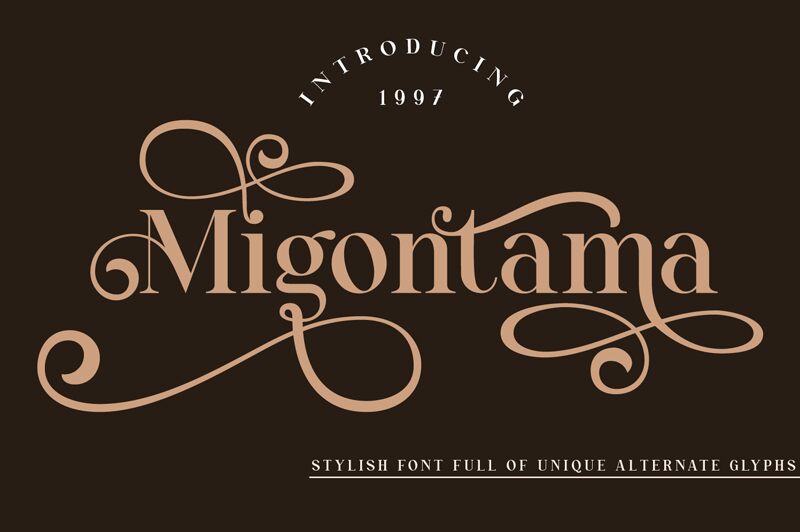
Migontama by Qaratype is a stunning semi-light serif font that exudes elegance and sophistication. With its sleek lines and graceful curves, it's perfect for projects where you want to make a statement without being too bold. Whether you're designing a logo, creating branding materials, or crafting an eye-catching website, Migontama will add a touch of refinement to your work. This font is particularly suitable for fashion brands, upscale restaurants and cafes, luxury hotels, and high-end beauty products. Add Migontama to your design arsenal today and elevate your projects to the next level!
Migontama